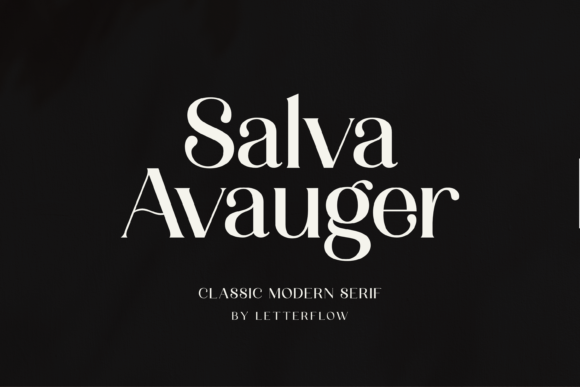
Introducing Salva Avauger, a timeless serif font crafted by the esteemed Letterflow Studio. With its elegant curves and confident strokes, Salva Avauger carries the weight of tradition while maintaining a modern charm. This font is a true chameleon, effortlessly adapting to a myriad of projects, from classic literary works to contemporary marketing campaigns.
Lose yourself in Salva Avauger's intricate details, where each letter holds a story, captivating readers with its undeniable allure. Its carefully calculated proportions create a visual symphony, where every word dances gracefully across the page. Whether you're a seasoned designer or a novice just starting your creative journey, Salva Avauger will become your faithful companion, elevating your designs with an air of sophistication.
Let Salva Avauger's timeless beauty carry your words to new heights. Its serifs, like delicate brushstrokes, add a touch of elegance to your creations. The font's versatility knows no bounds; it flourishes in both digital and print realms, seamlessly transitioning from screen to paper, leaving a lasting impression on your audience.
Unleash your creativity with Salva Avauger. Let its classic form bring depth and character to your projects. Experience the joy of crafting designs that effortlessly captivate and engage, leaving your audience breathless. Join countless designers who have discovered Salva Avauger's magic, transforming their creative visions into extraordinary realities.